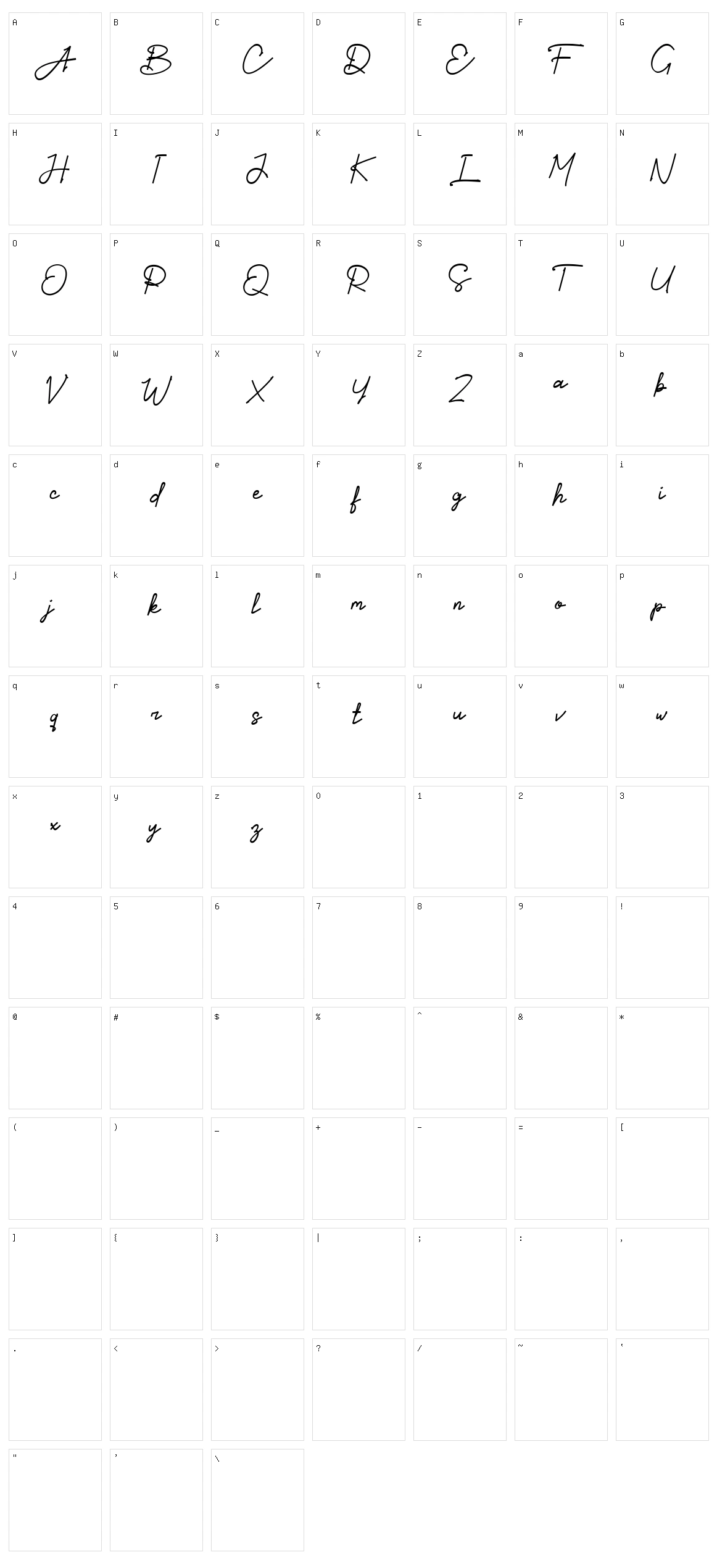
The free font Sweet Carissa is carefully designed by Masanis Studio, showcasing a thoughtful balance of creativity and usability and falls under the Script font style. When you download the ZIP file, it contains only 2045.34 KB of font files, making it lightweight and quick to download. Please review the license details below to understand permitted usage and distribution rights. If license information is not available, we recommend using this font for personal projects only or contacting the author directly for commercial usage permissions.
Sweet Carissa